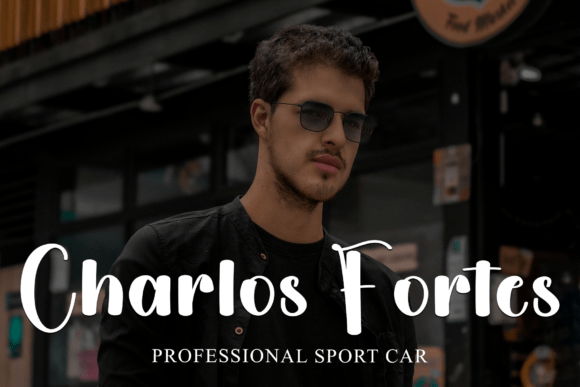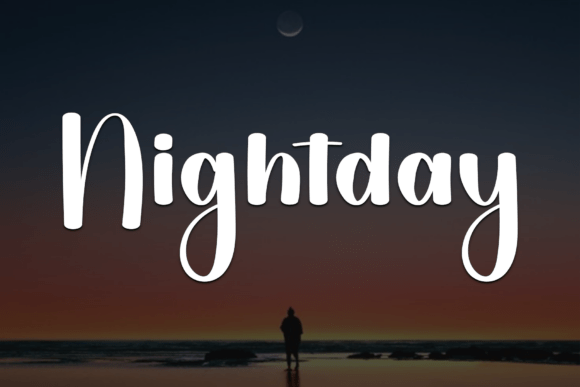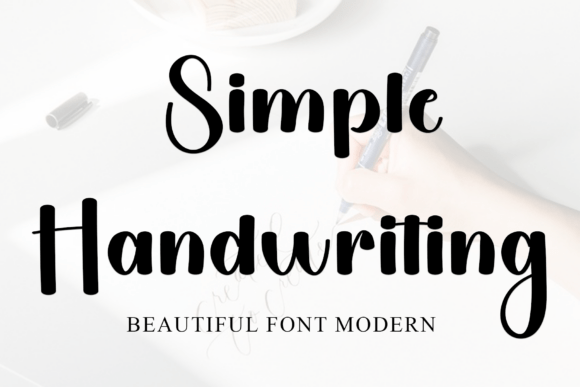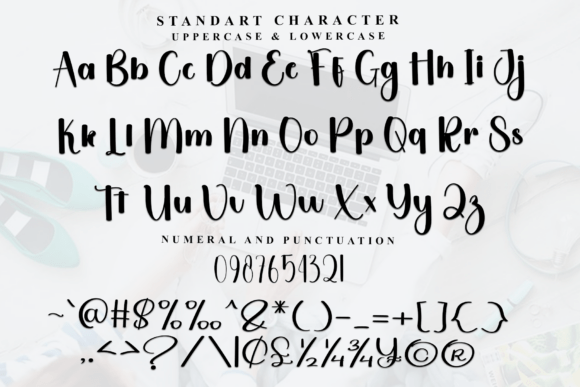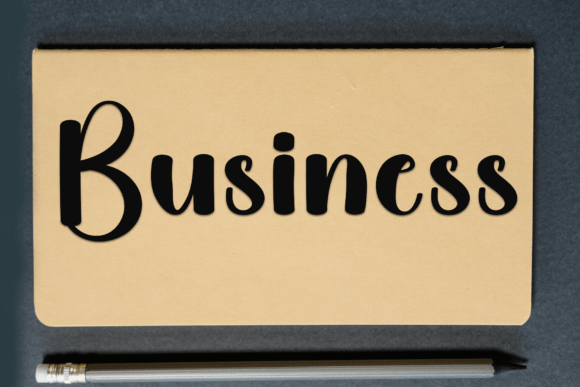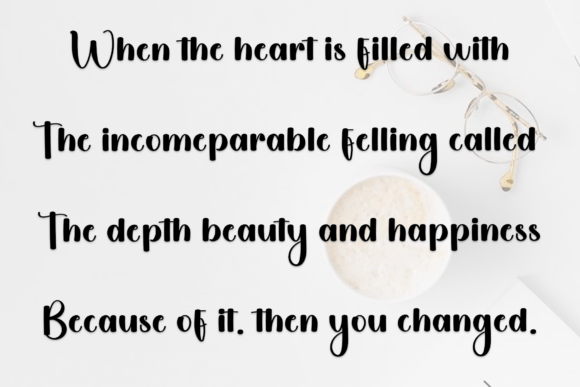
Introducing Cherry Font: The Festive and Merry Typeface for Holiday Designs
Are you looking for a typeface that embodies the spirit of the holiday season? Do you want to add a touch of magic to your designs, greeting cards, and gift tags? Look no further than Cherry Font, a festive and merry typeface that’s perfect for bringing cheer and nostalgia to your projects.
What Makes Cherry Font So Special?
Cherry Font is a decorative typeface that’s specifically designed to capture the essence of the holiday season. With its whimsical flair and enchanting elements, this font is sure to add a touch of wonder to your designs. Whether you’re creating holiday-themed projects, greeting cards, or gift tags, Cherry Font is the perfect choice.
One of the standout features of Cherry Font is its decorative elements. The font includes a range of glyphs and ligatures that are designed to add a touch of festivity to your designs. From snowflakes and holly leaves to Christmas trees and stockings, the font is packed with holiday-themed elements that will make your designs shine.
Cherry Font is perfect for designers and crafters who want to add a personal touch to their projects. Whether you’re creating digital designs or handmade crafts, this font is easy to use and versatile. The font is PUA encoded, which means you can access all of the amazing glyphs and ligatures with ease.
For designers, Cherry Font is a great choice for holiday-themed projects, such as Christmas cards, social media graphics, and website headers. The font is highly legible and can be used in a range of sizes, making it perfect for both digital and print designs.
For crafters, Cherry Font is a great choice for handmade projects, such as gift tags, scrapbooking, and card making. The font is easy to use and can be adapted to suit a range of crafting techniques, from die-cutting to stamping.
The Benefits of Using Cherry Font
So why choose Cherry Font for your holiday designs? Here are just a few benefits of using this festive and merry typeface:
- Adds a touch of magic to your designs: With its decorative elements and whimsical flair, Cherry Font is sure to add a touch of enchantment to your designs.
- Perfect for holiday-themed projects: Whether you’re creating Christmas cards, gift tags, or holiday-themed graphics, Cherry Font is the perfect choice.
- Easy to use: The font is PUA encoded, making it easy to access all of the amazing glyphs and ligatures.
- Versatile: Cherry Font can be used in a range of sizes and is suitable for both digital and print designs.
- Nostalgic ambiance: The font brings a cheerful and nostalgic ambiance to your words, perfect for capturing the spirit of the holiday season.
- Experiment with different sizes: Cherry Font is highly legible and can be used in a range of sizes, from small gift tags to large holiday graphics.
- Combine with other fonts: Cherry Font pairs well with other festive fonts, such as script fonts and bold sans serifs.
- Use the glyphs and ligatures: The font includes a range of glyphs and ligatures that are designed to add a touch of festivity to your designs.
Cherry Font is a festive and merry typeface that’s perfect for adding a touch of magic to your holiday designs. With its decorative elements and whimsical flair, this font is sure to bring cheer and nostalgia to your words. Whether you’re a designer or crafter, Cherry Font is a great choice for holiday-themed projects. So why not give it a try and see how it can bring your designs to life?